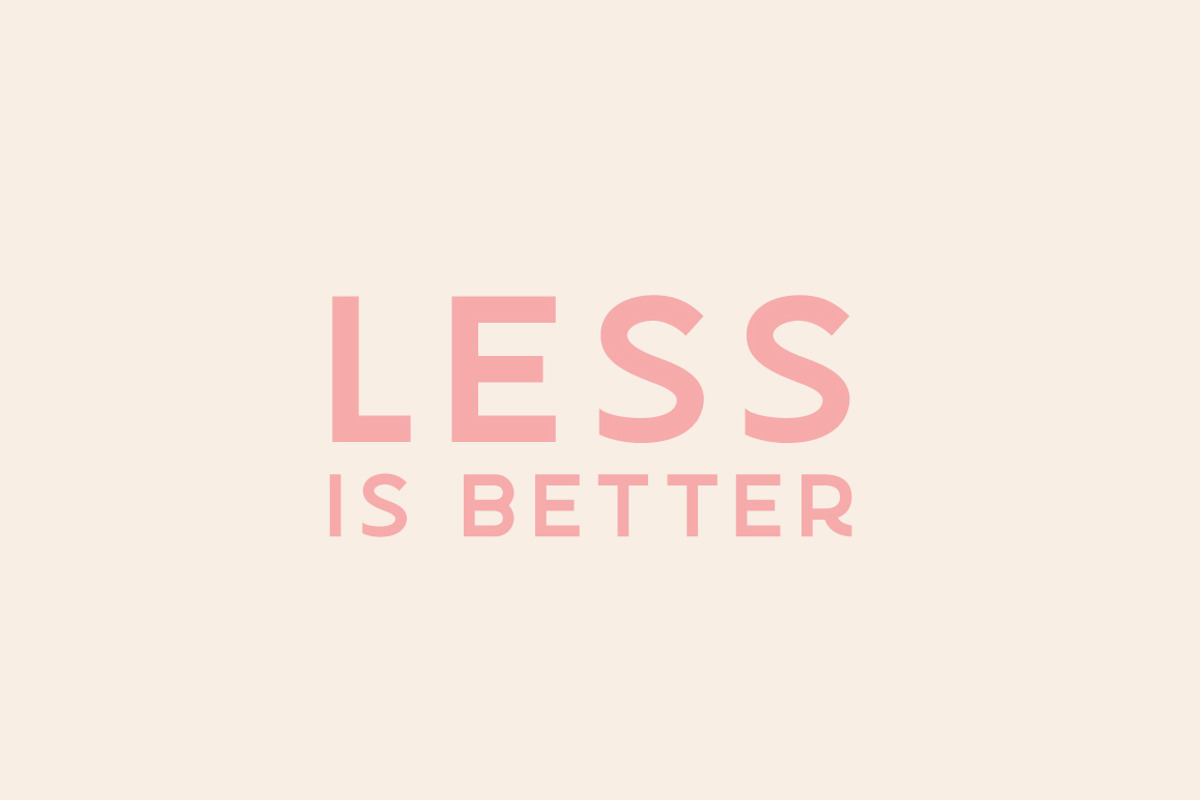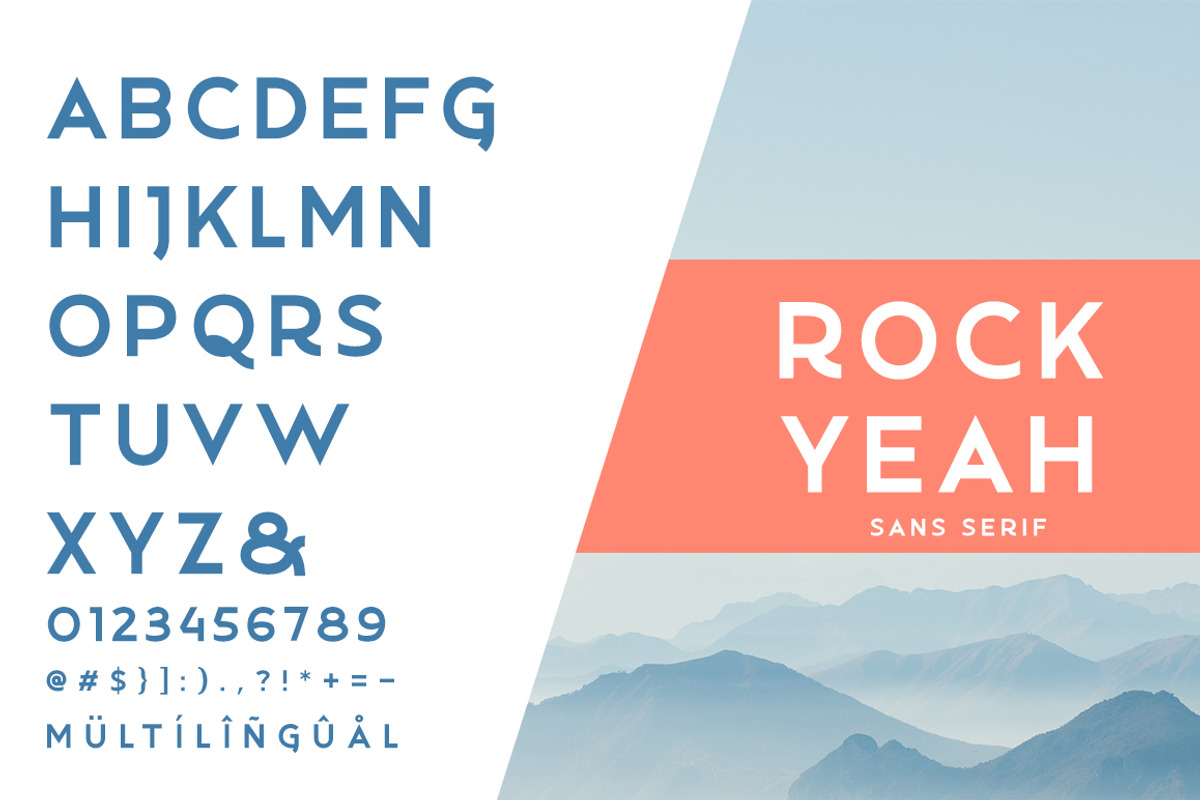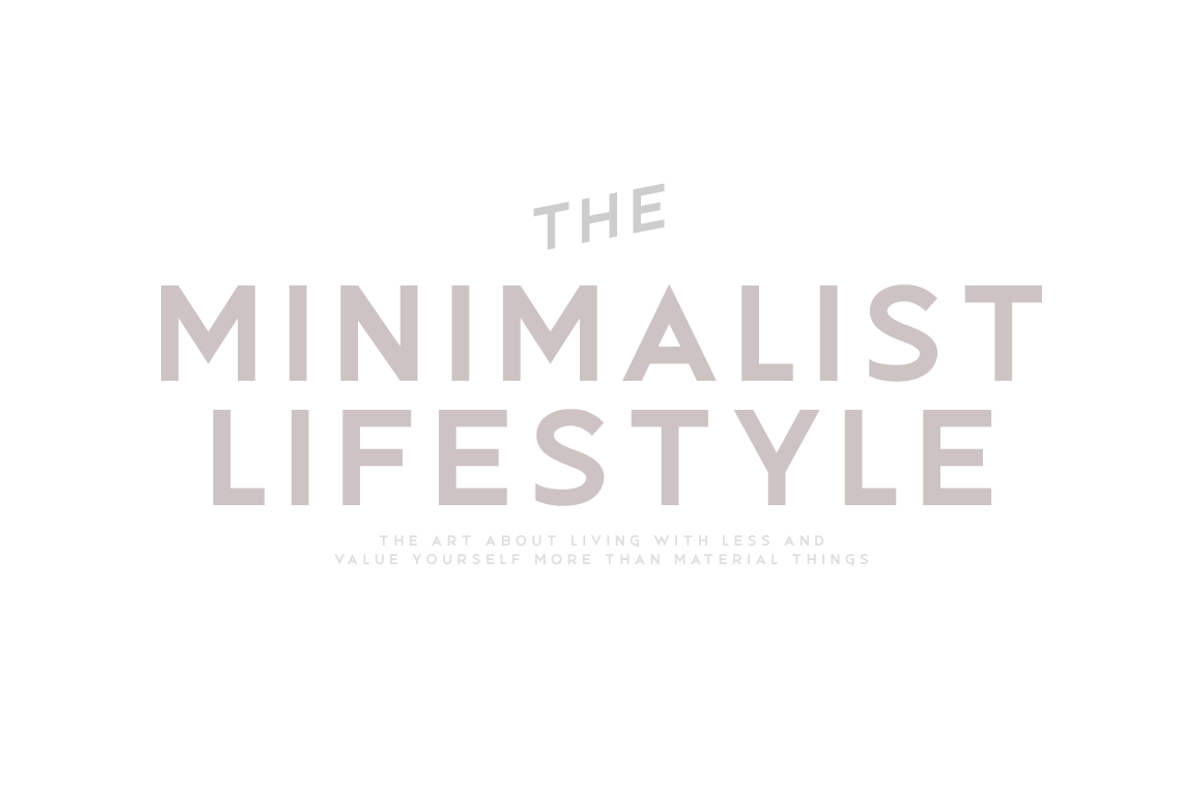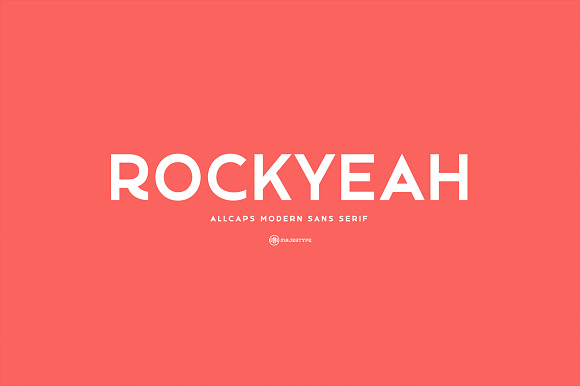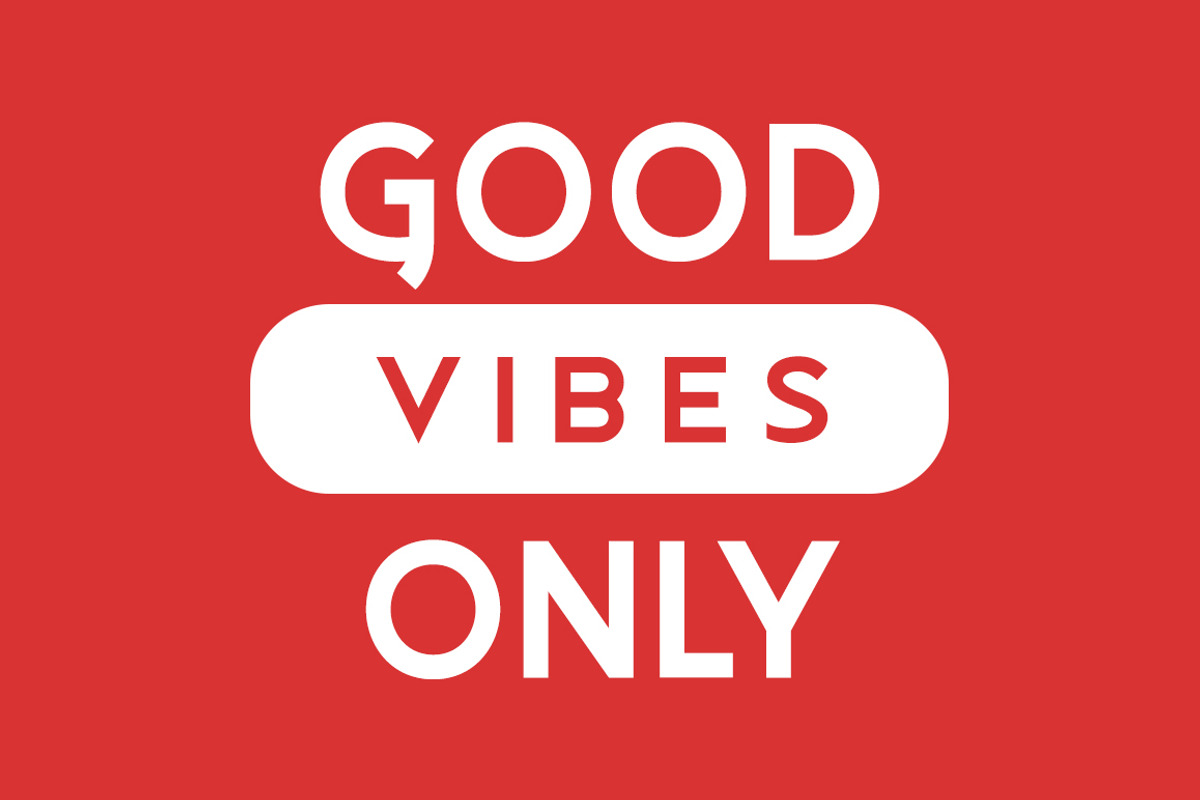
Rockyeah Sans - Modern Font
Rockyeah Sans is allcaps geometric sans serif that focuses on legible, clean and useful for any project. This sans is an interpretation of Rockyeah Serif with the same caps height and bold stroke.